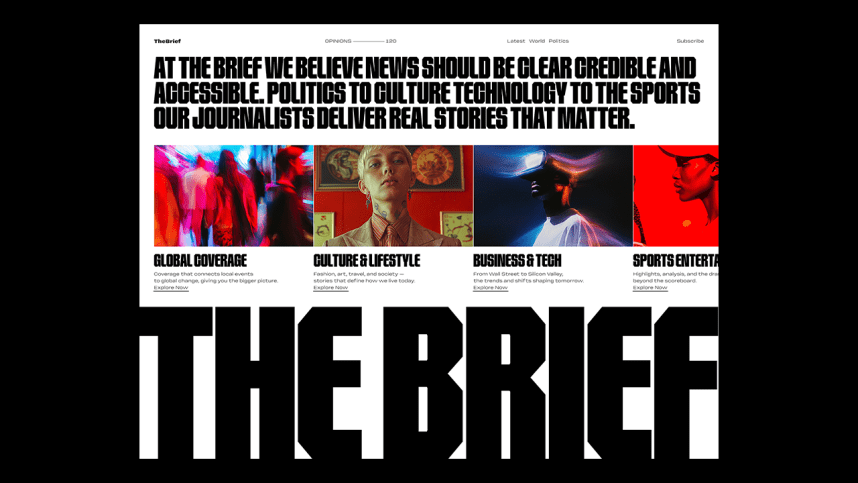
BigBang Typeface
BigBang Typeface is a contemporary variable typeface defined by its sharp edges and bold personality. Built for versatility, it offers designers a complete typographic system that balances precision with expressive form.
With 6 widths and 2 optical options — Regular and Inktraps — BigBang delivers a wide spectrum of possibilities. Its 216 styles provide freedom to explore subtle shifts or dramatic contrasts, all within a single cohesive family. Whether applied to branding, editorial, digital, or motion, BigBang adapts seamlessly — offering clarity, impact, and a distinct visual identity.